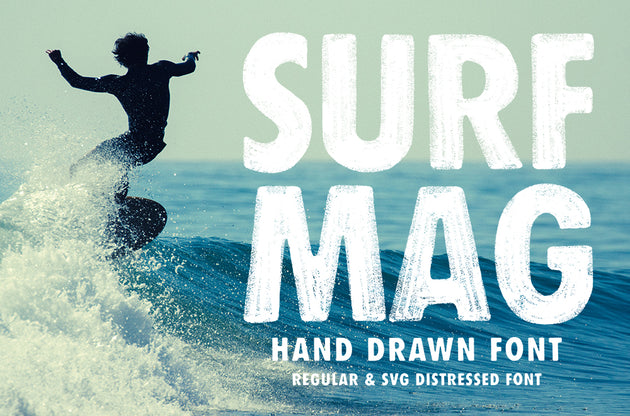
This font looks hand drawn because... it was hand drawn... outside of a computer.
Surf Mag is a hand drawn typeface available in Regular OTF and Distressed SVG versions. This font was inspired by the lettering in vintage surf magazines.
SVG Fonts, usable in Adobe Photoshop, enable the nuance and texture of a hand lettered type to translate to the font form. The Distressed version of Surf Mag is a great example of how an SVG font can emulate hand painted type. You can use adjustment layers to change the color of the font and adjust the font layer using "multiply" to achieve stunning, true to life, effects!
The Regular version of Surf Mag is a vector OTF font that is infinitely scalable. It still possesses the nuance of a hand lettered font, while working just like any other font in your font library.